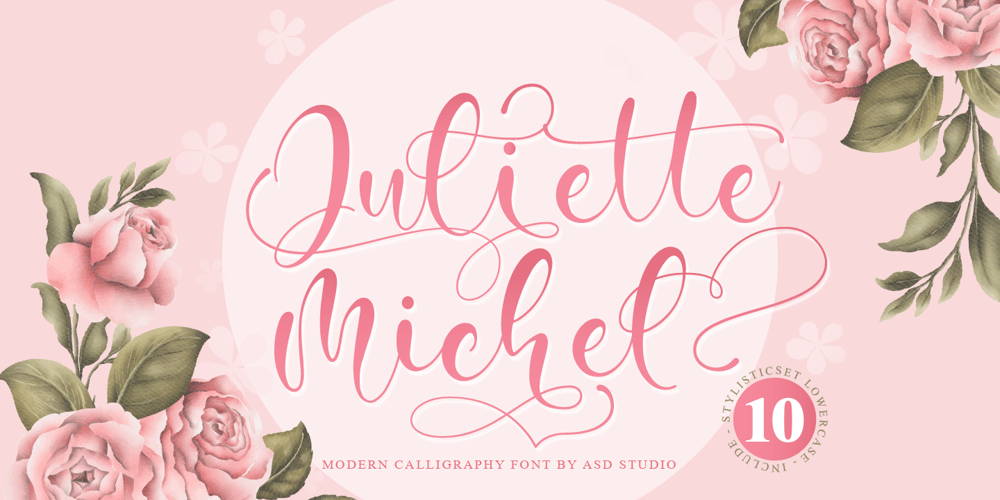
Juliette Michel Font Family was designed by Ghazi and published by Asd Studio. Juliette Michel contains 1 styles and family package options. Juliette Michel is a script font created with love, sincerity, and patience. Can be used to make invitation writing, lettering, and all graphic design needs. This font is equipped with 10 stylistic sets that will make your design look more attractive and beautiful. I highly recommend using a program that supports OpenType features and Glyphs panels such as Adobe Illustrator, Adobe Photoshop CC, Adobe InDesign, or CorelDraw, so you can see and access all Glyph variations. This font is encoded with Unicode PUA, which allows full access to all additional characters without having special design software. Mac users can use Font Book, and Windows users can use Character Map to view and copy one of the extra characters to paste into your favorite text editor / application. Thank you if you are interested in purchase and using my font. I hope you enjoy the font, thank you.